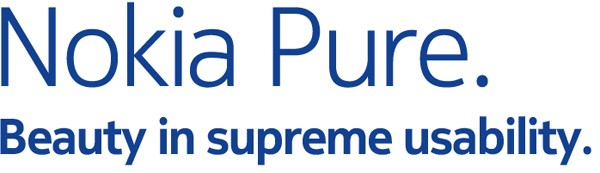
Nokia Ditches Old Familiar Font For Shiny New One
Before reading the following post, I suggest you make peace with your Maker because it’s so intense you may just explode in ecstasy. Are you ready? I mean, really, ask yourself: are you ready? I don’t think you’re ready because you couldn’t possibly be ready. Well, OK, maybe you are ready. Let’s hope so. Ready? Here we go: Nokia is using a new font.
BOOM~!
Yes, the Finnish giant has said that it will stop using its old standby Nokia Sans, and will instead begin using Nokia Pure. The move to Pure is part of the company’s ongoing brand re-building, which also includes embracing Microsoft and it Windows Phone 7 platform.
Nokia says the new font will look and feel better on today’s digital devices than old man Sans.
I’d be shocked if all the stars in the galaxy—and there’s anywhere from 100-400 billion of them—don’t explode upon hearing this.